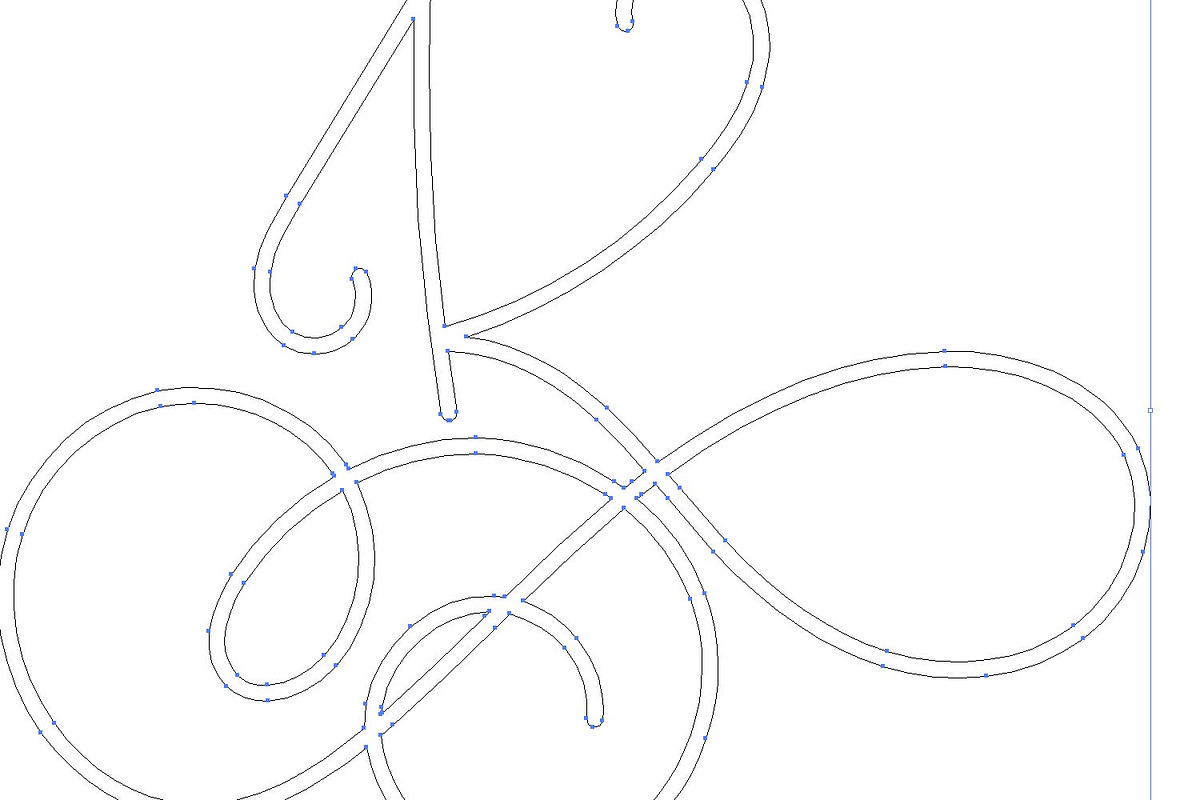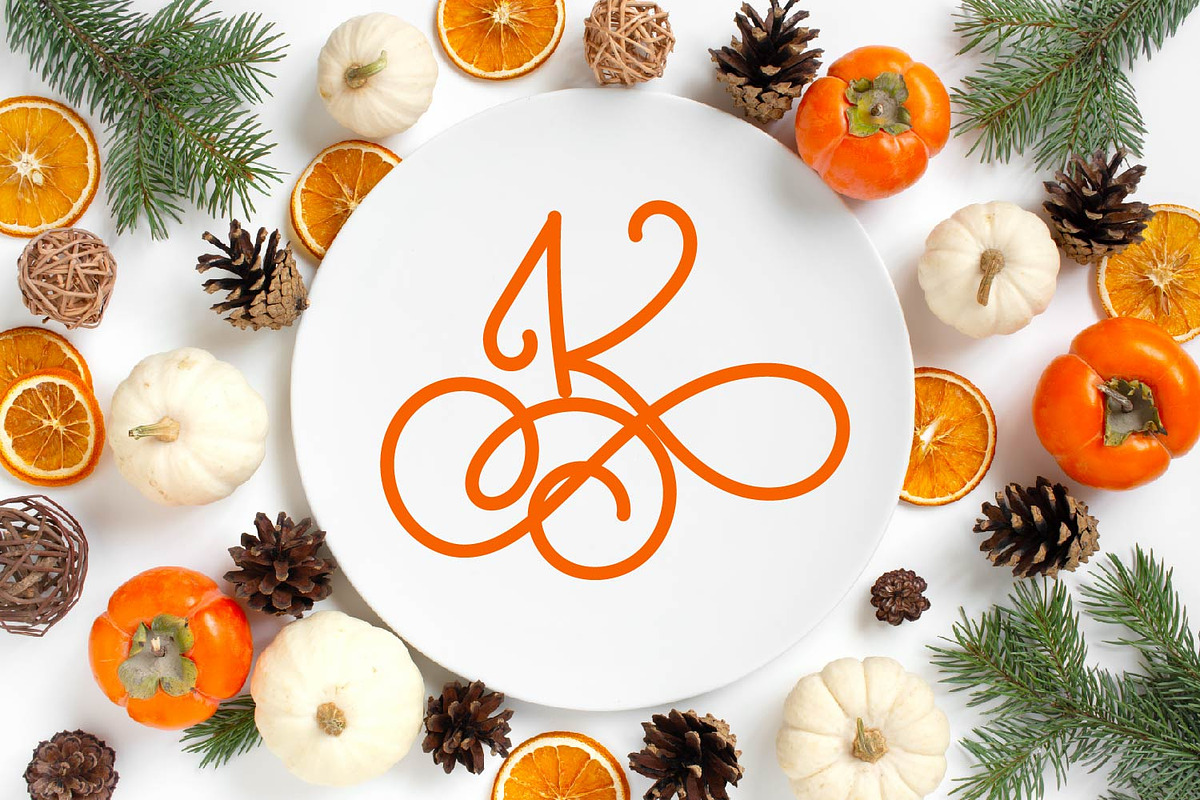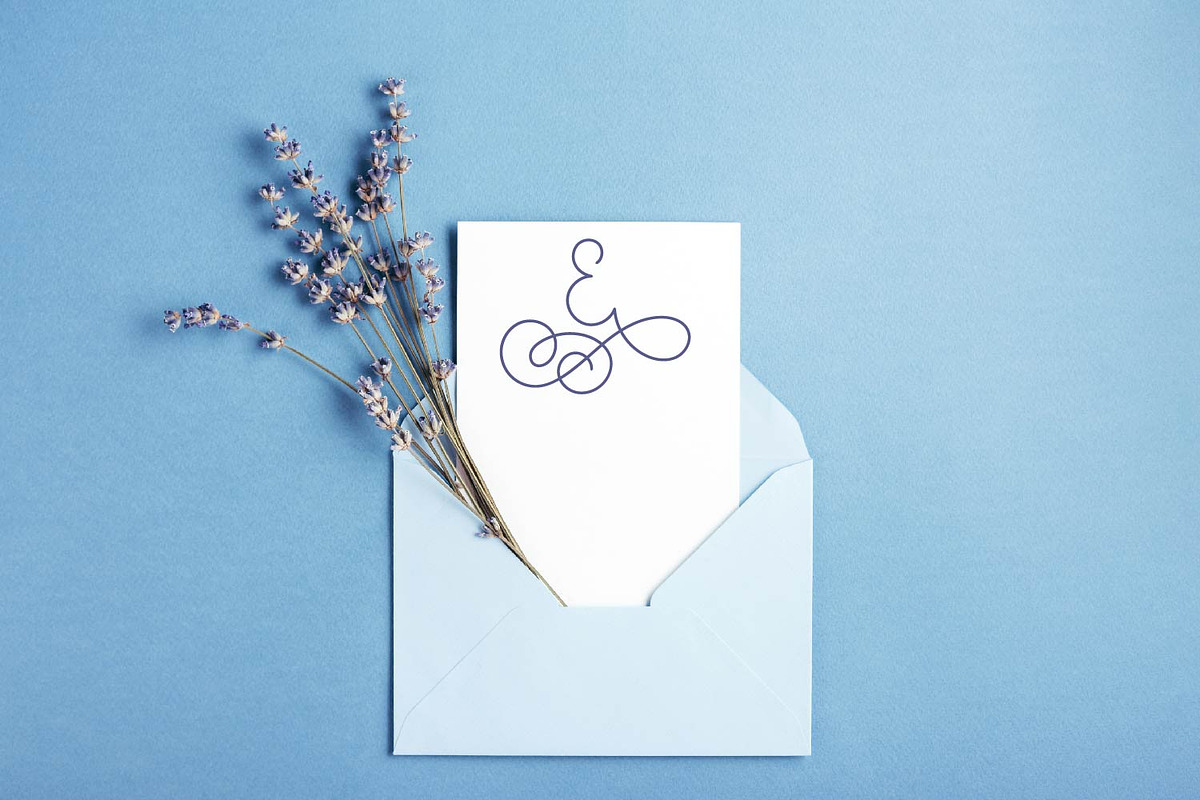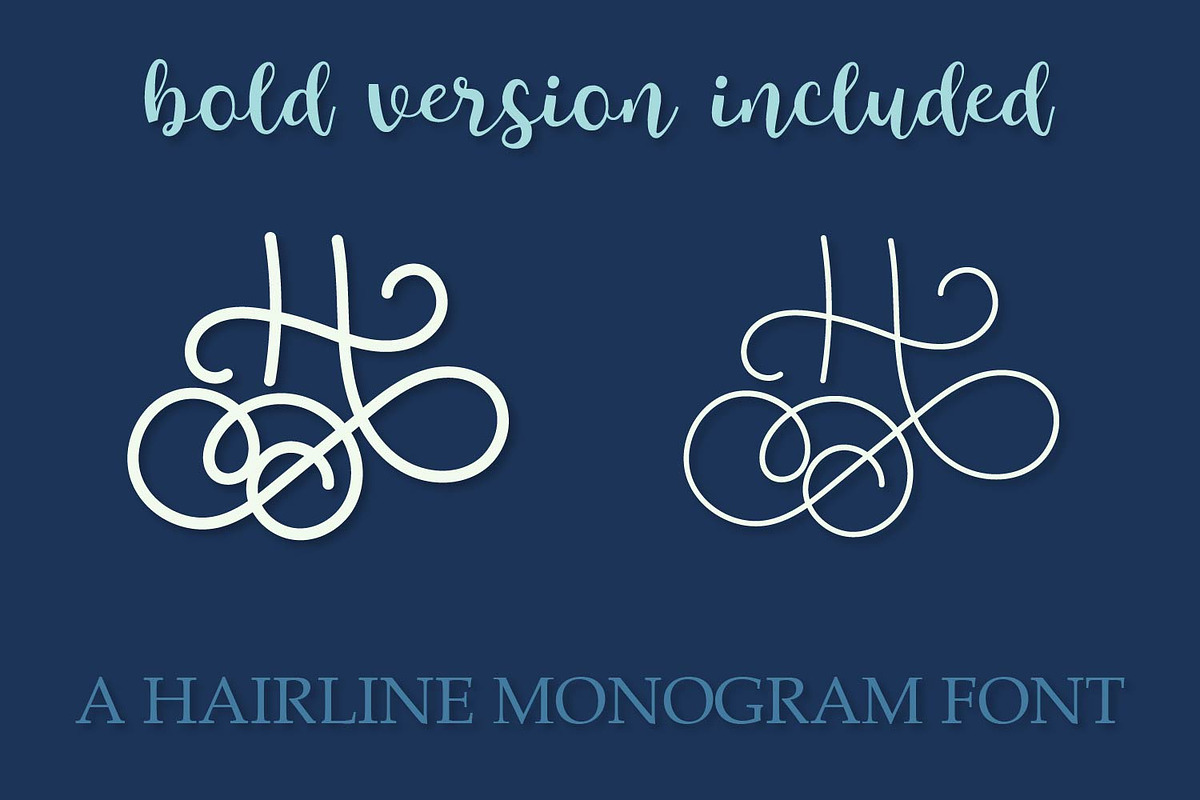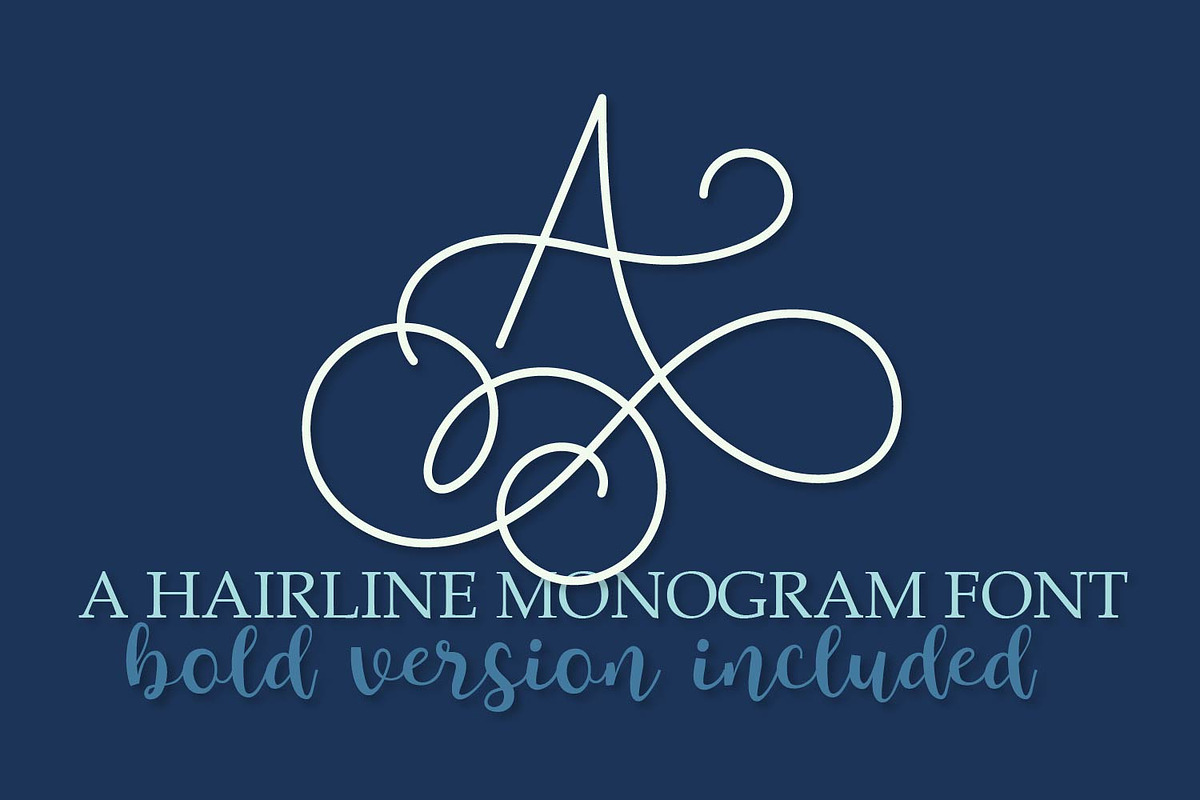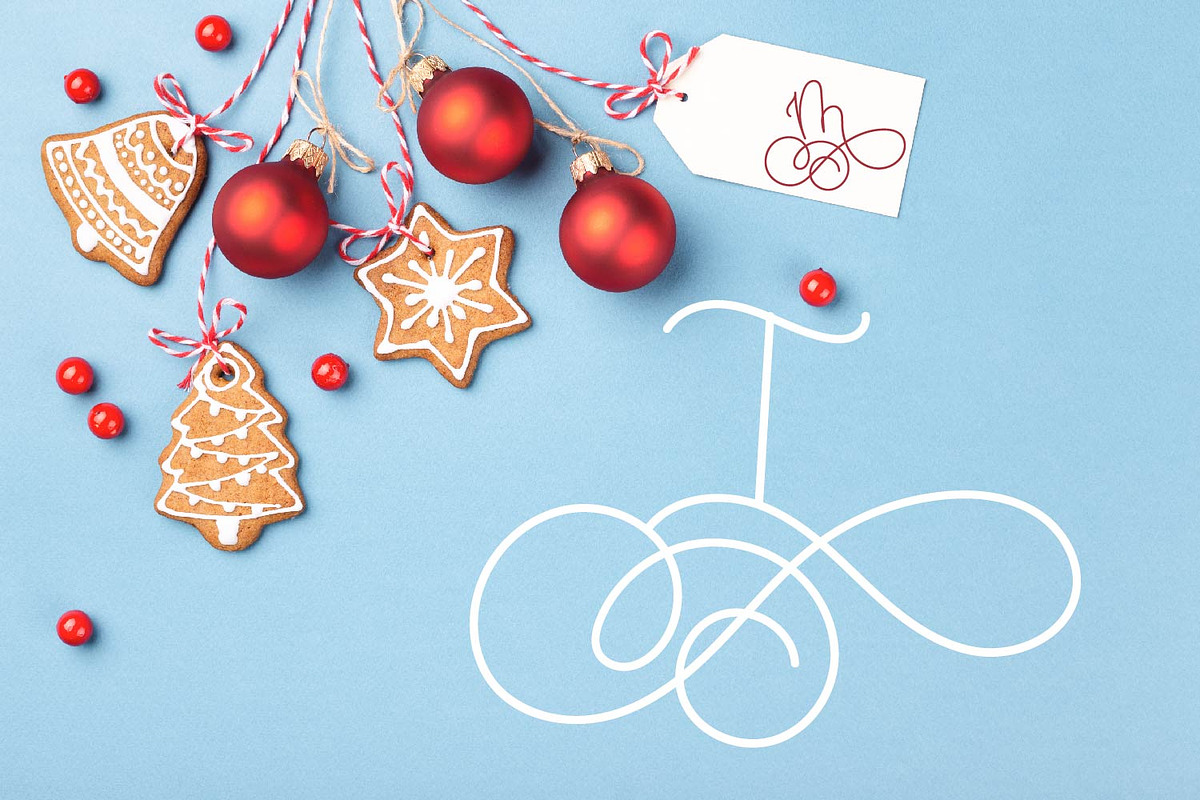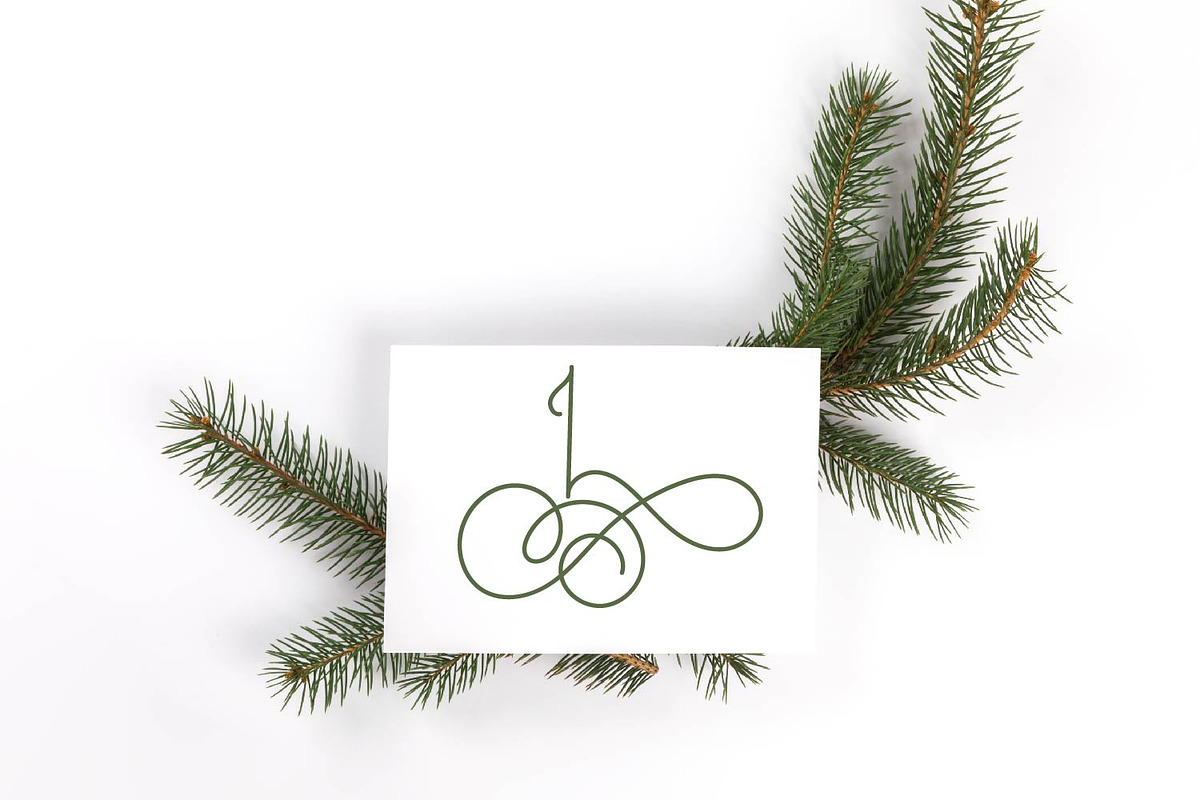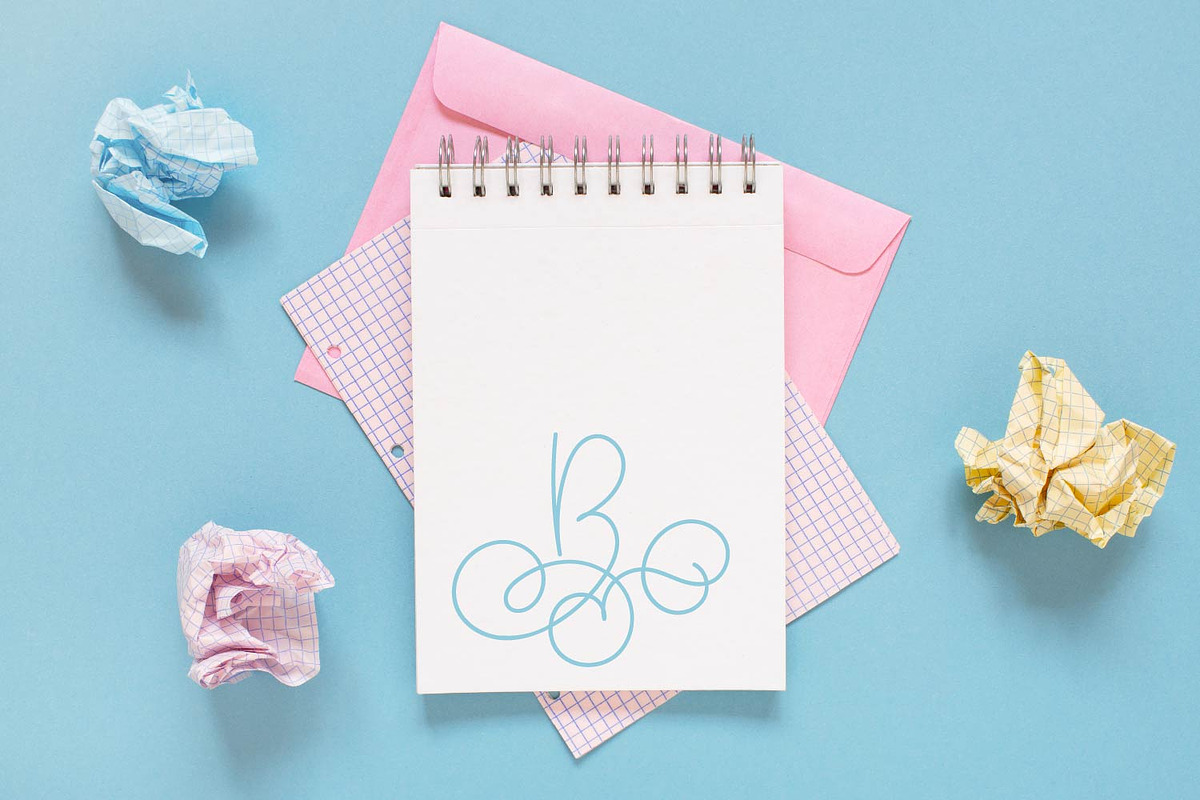
A Hairline Monogram Font
A Hairline Monogram Font by CraftyLittleNodes is a font selected for branding, posters, packaging, typography.
A Hairline Monogram Font by CraftyLittleNodes fits naturally into Branding, posters, packaging, typography.